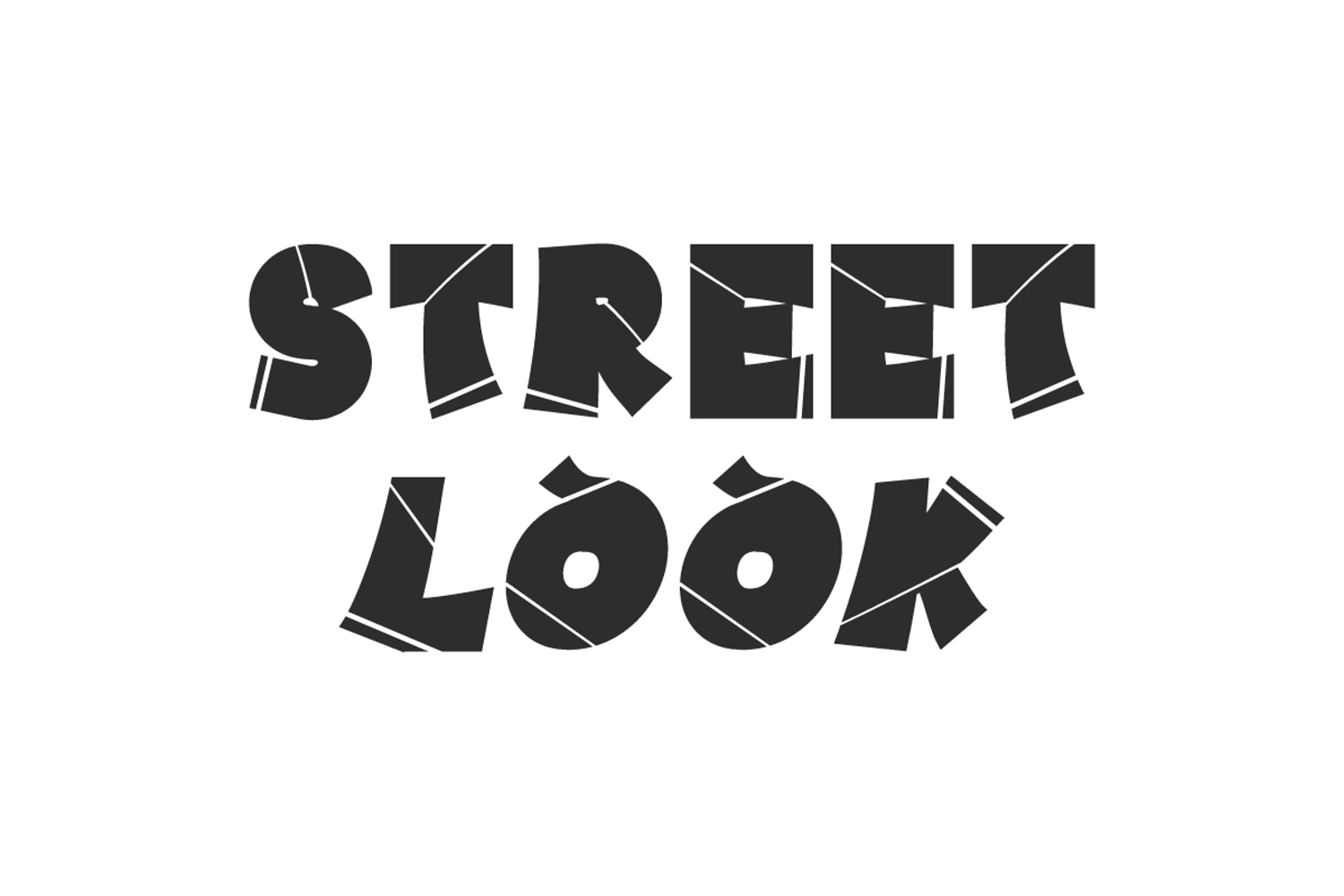
street look
Street Look Font is a bold display font with a different style than usual, the striped design on each character is made to make this font look very unique. Equipped with an italic font style that can be combined in any project. Try this font in your work, such as blogs, cover, headers, headline, label, logo, poster, printed materials, quotes, tags, template, text art on background, title, website, etc.
Street Look Font includes full set of ALL CAPS for Uppercase and Lowercase Basic Characters in both Regular and Italic, Numbers, Punctuation, and Symbols. This font has a very different appeal, by combining this font it will make your design cooler. The characteristics of this font will help the appearance of the project design you create not look boring. Ideal for advertising, fashion, graphic design, photography, printing, publishing, writer, and more.